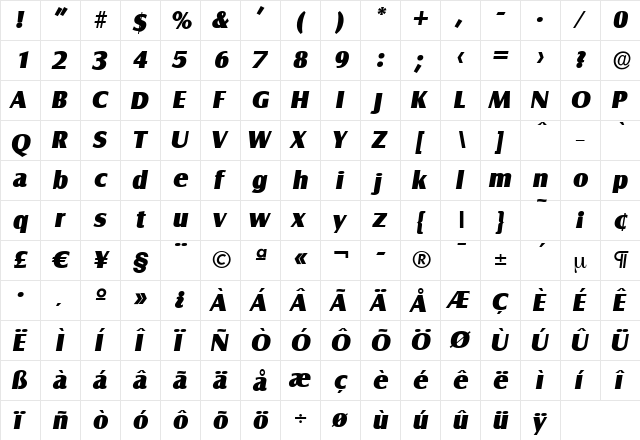
BillyBecker-Heavy Italic Font Preview
BillyBecker-Heavy Italic
BillyBecker-Heavy Italic Font Details
Design Context for BillyBecker-Heavy Typeface
BillyBecker-Heavy offers clean, dependable letterforms without strong stylistic allegiance, making it a practical choice for designers who need flexibility. The slanted form adds forward momentum and visual energy.
Pro Tip: Try BillyBecker-Heavy for annotation and caption copy alongside an upright companion — the contrast in angle creates a dynamic but ordered typographic system.